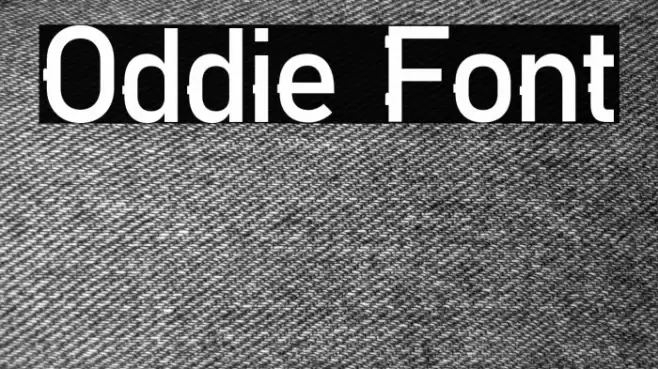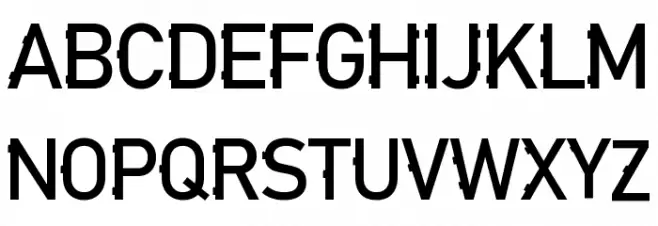
Oddie Font
Oddie Description
This font features a modern sans-serif style with clean, geometric lines and a uniform stroke width. The characters are well-balanced, offering a contemporary and professional appearance. The uppercase and lowercase letters are distinct, with a slight variation in height that enhances readability. The numbers are clear and consistent with the overall design, making them suitable for both digital and print media. Special characters are included, maintaining the font's cohesive look. The font's simplicity and clarity make it versatile for various design applications.
A modern sans-serif font with clean, geometric lines and uniform stroke width from Regular fonts.